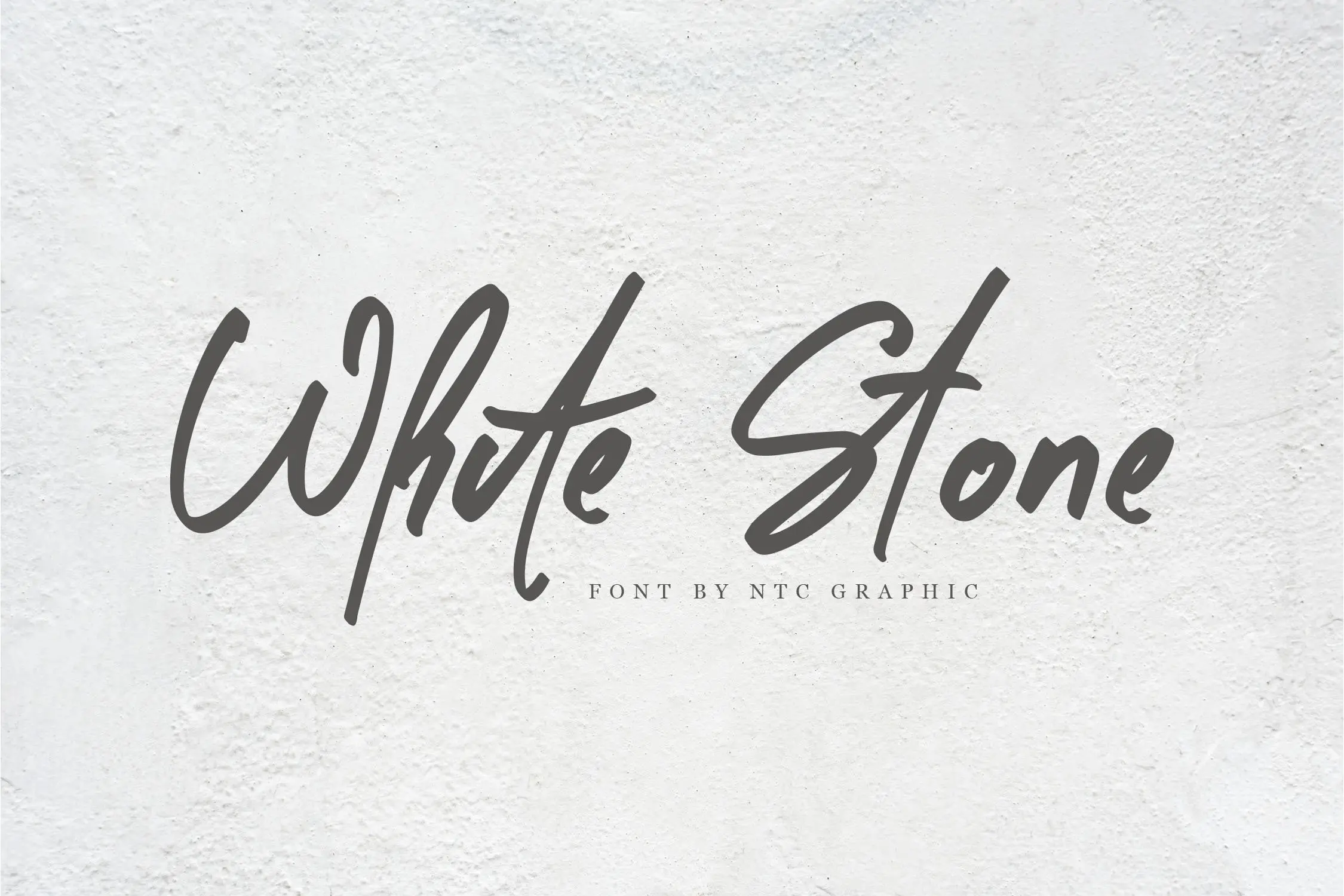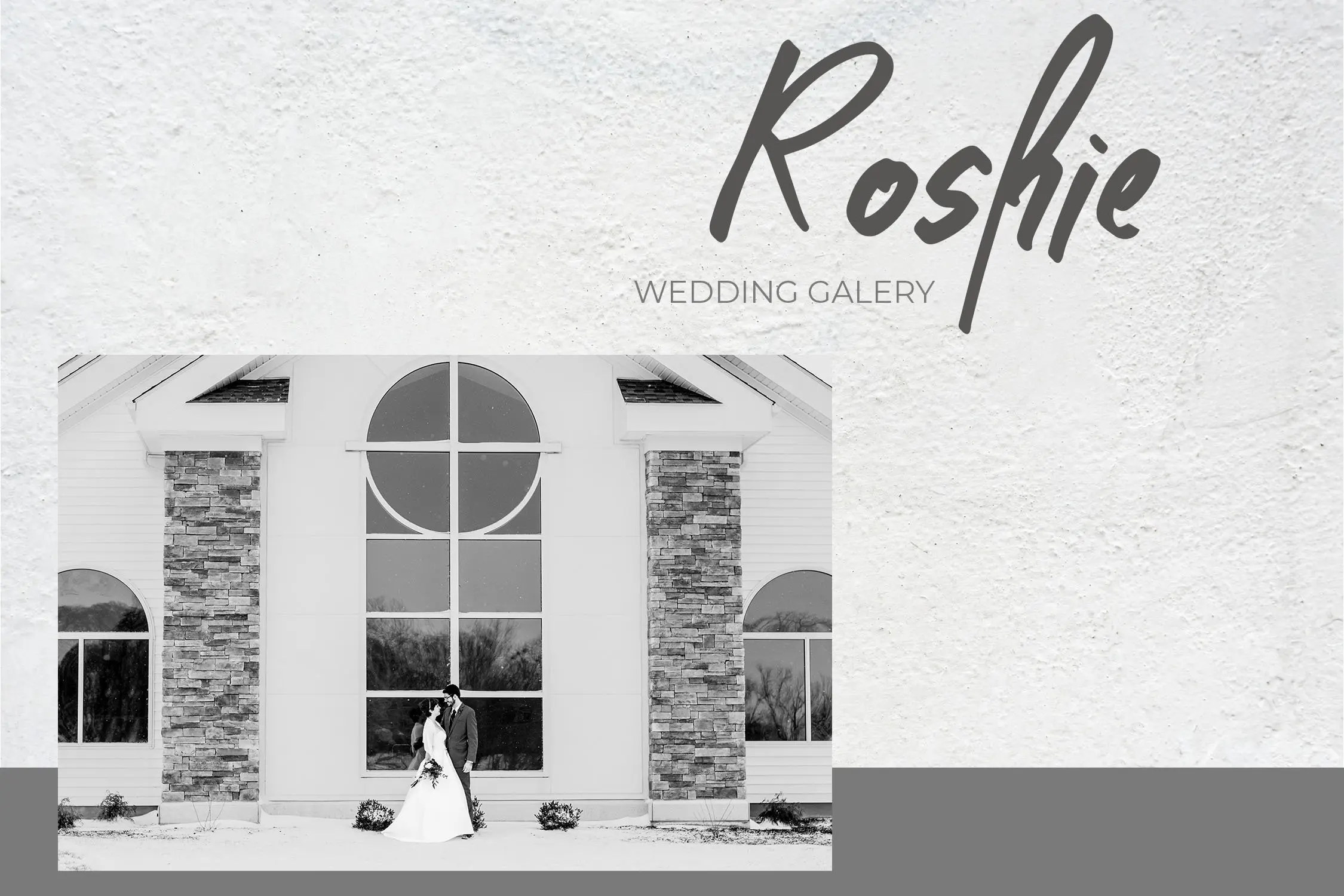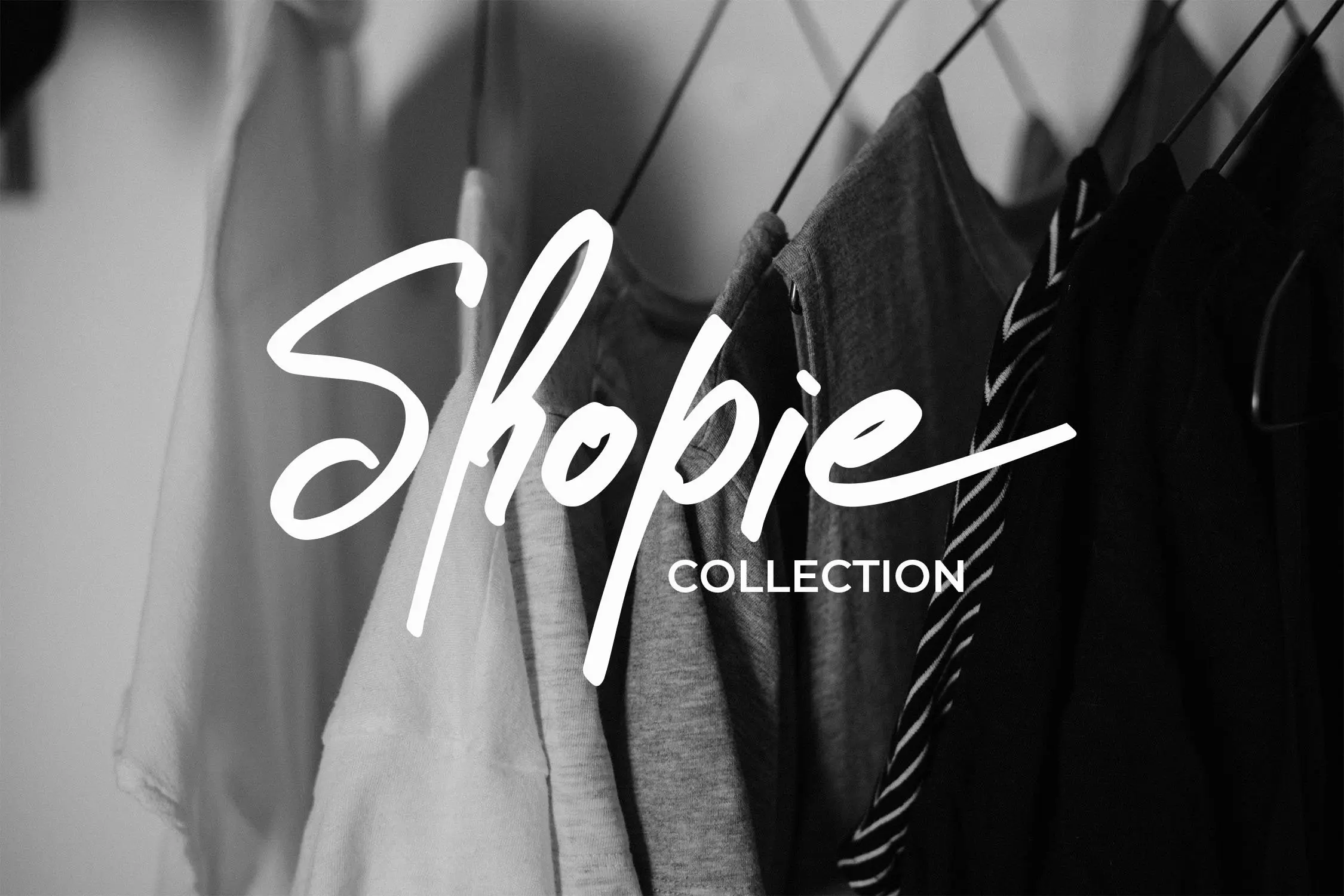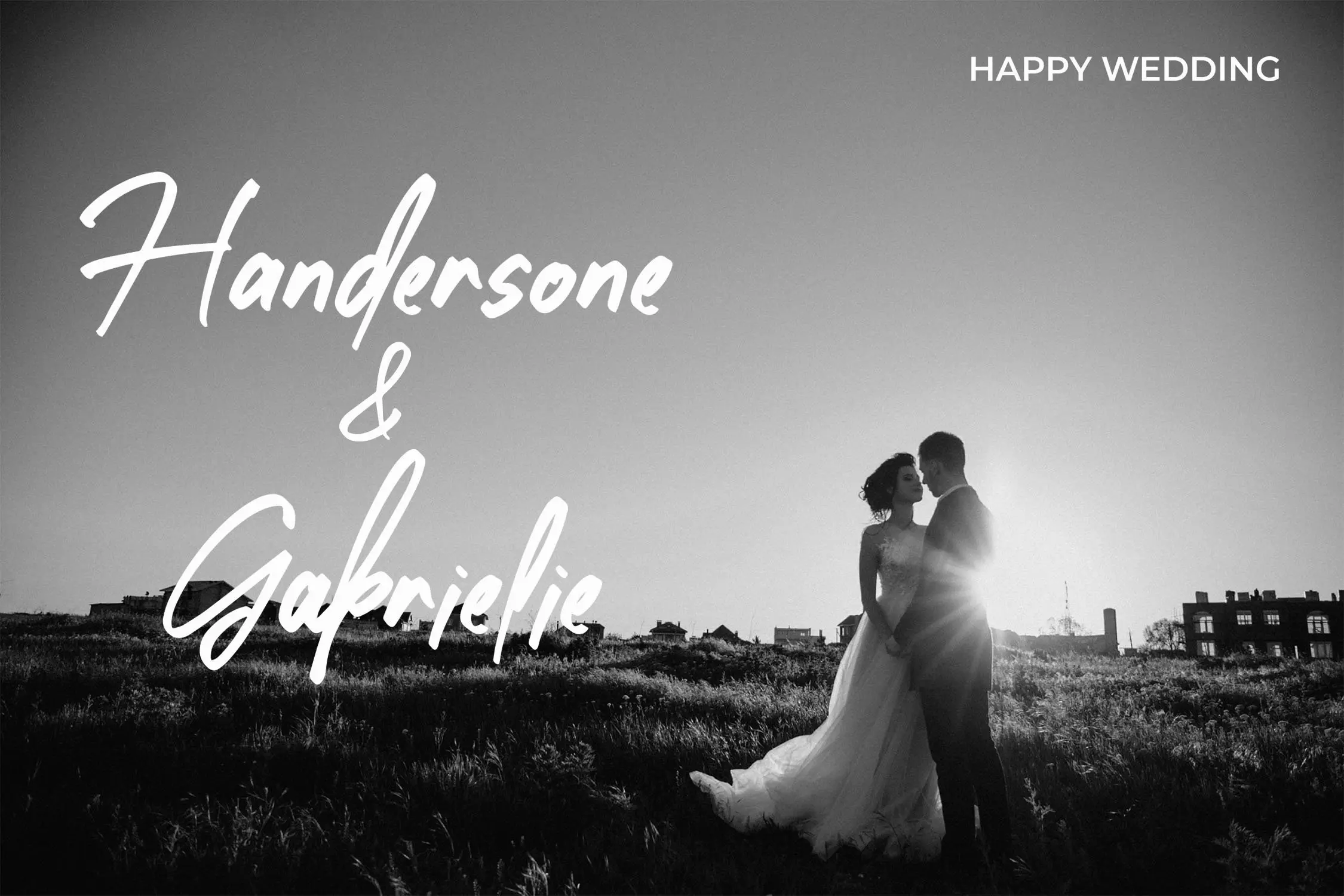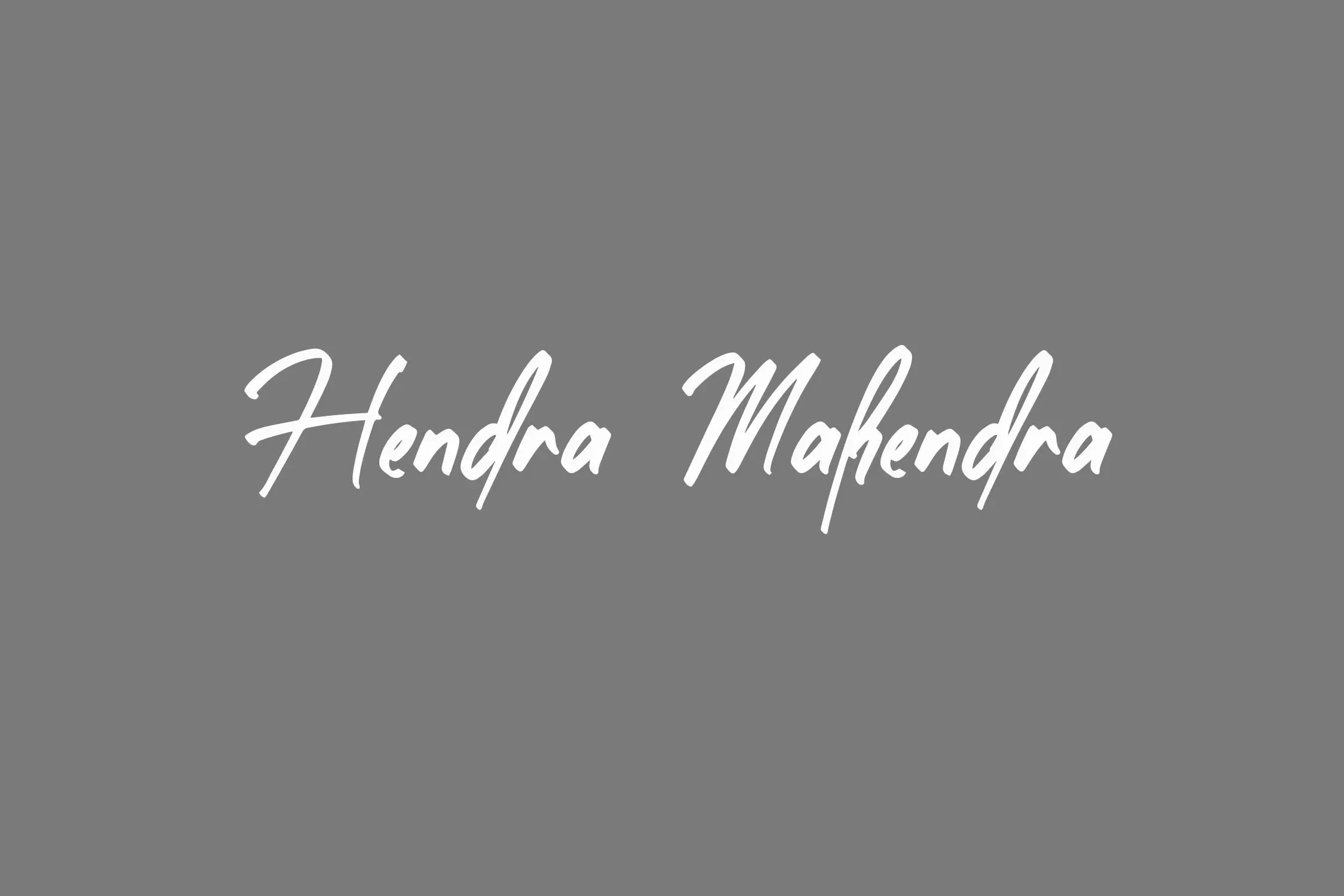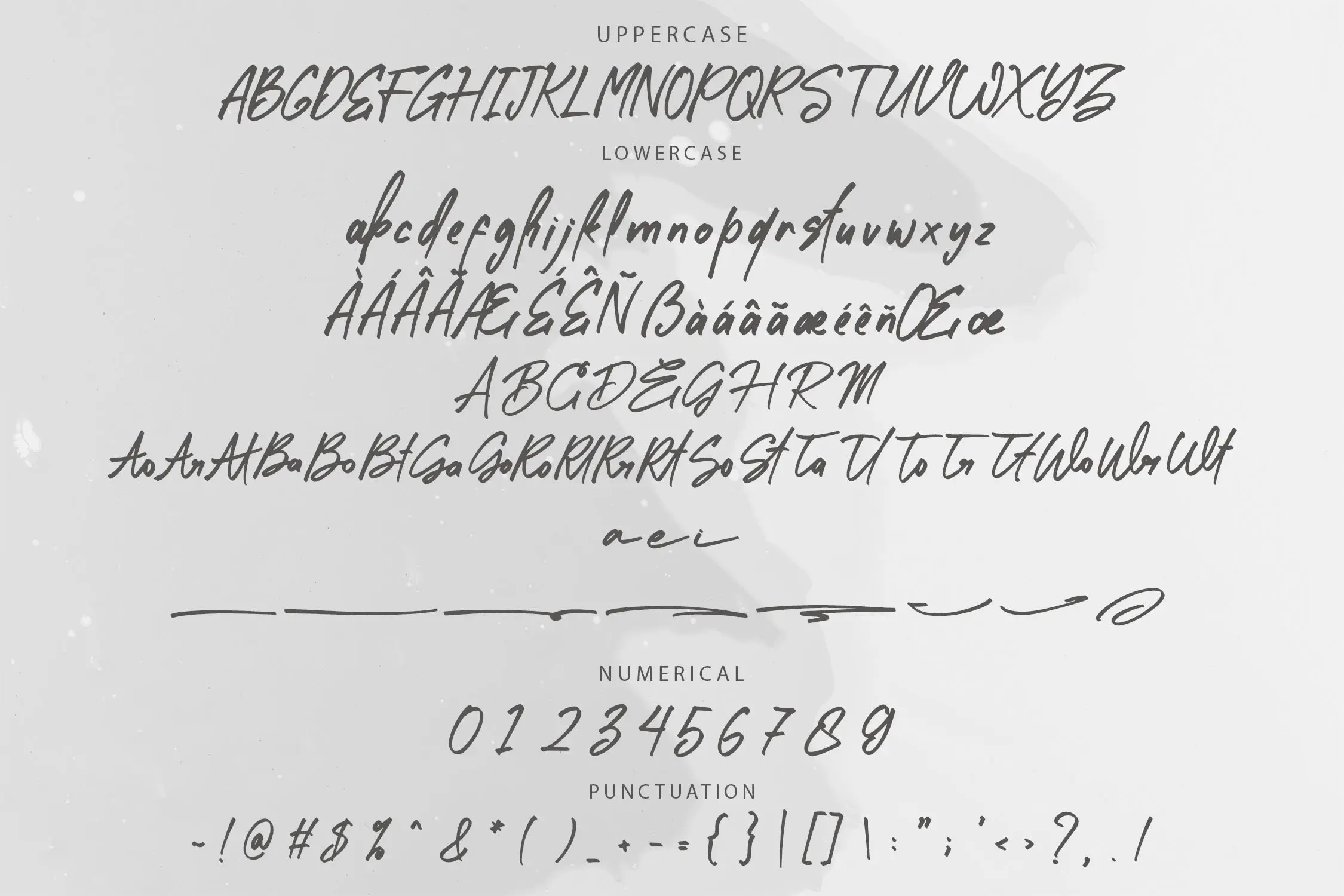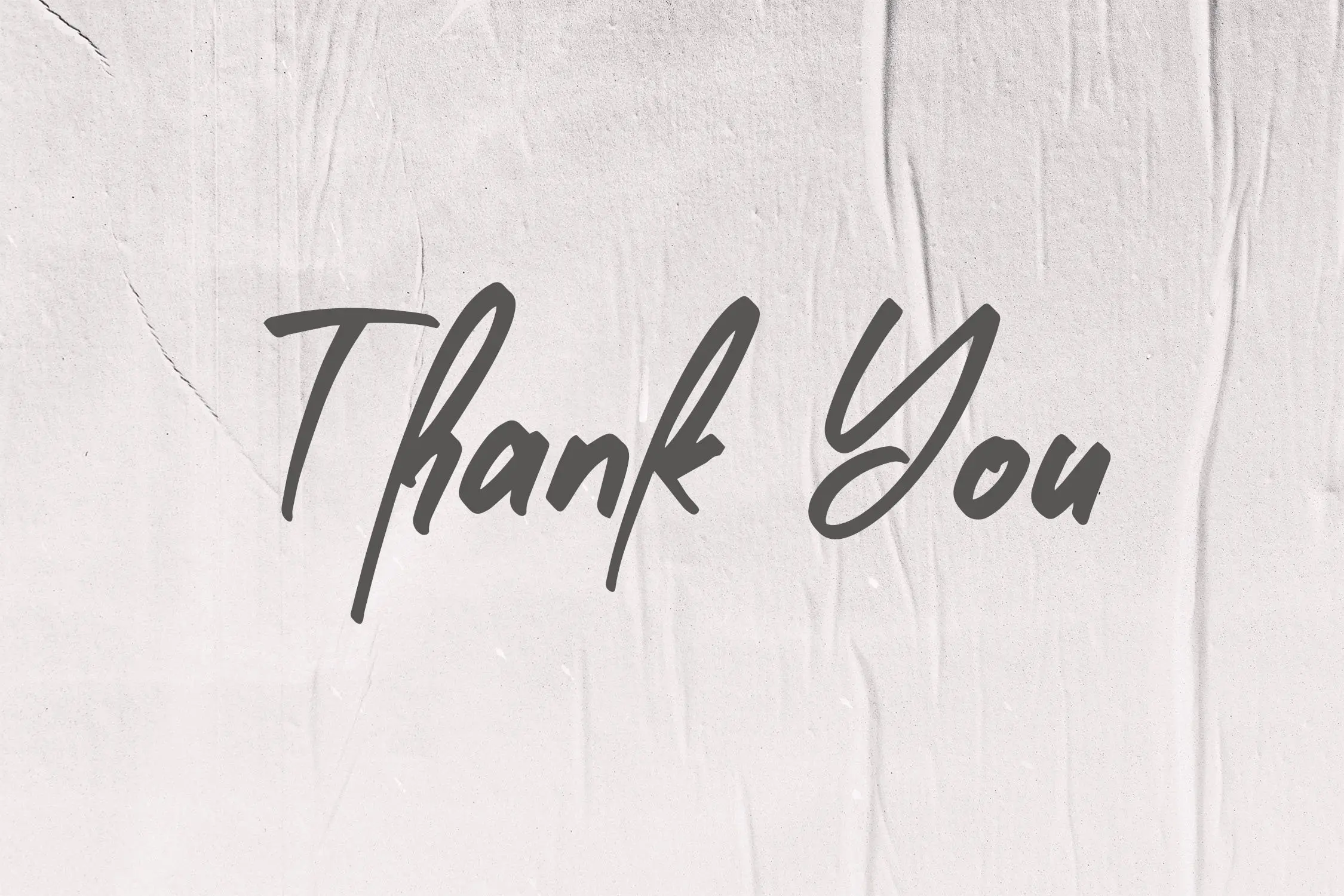
Introducing White Stone, a beautifully hand-brushed script font, bearing unique character shapes to enhance your graphic designs and product aesthetics. With its captivating appeal, White Stone ensures your work stands out, making it more attractive. This font has been designed with the utmost care, and we appreciate your interest and download of this distinctive typeface.